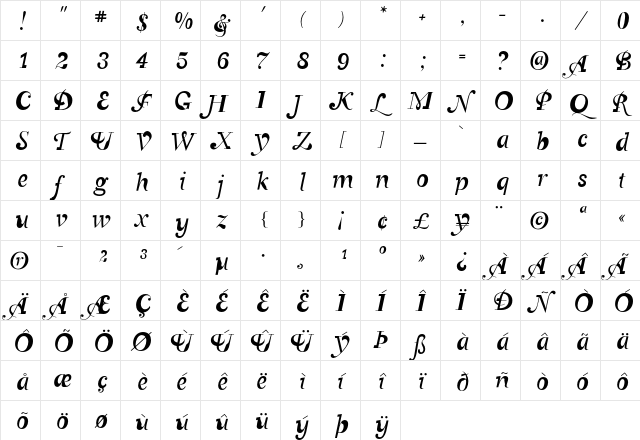
CanadianPhotographer Script
Design Context for CanadianPhotographer Typeface
CanadianPhotographer brings a calligraphic fluidity to the page — its connecting strokes and expressive curves give it an unmistakably human quality.
Font Pairing: Combine CanadianPhotographer with a simple geometric sans for maximum contrast — the tension between flowing curves and clean structure is a classic typographic pairing.
Pro Tip: Use CanadianPhotographer for short runs of text — names, titles, or taglines. Extended body copy in script faces tires the eye quickly.